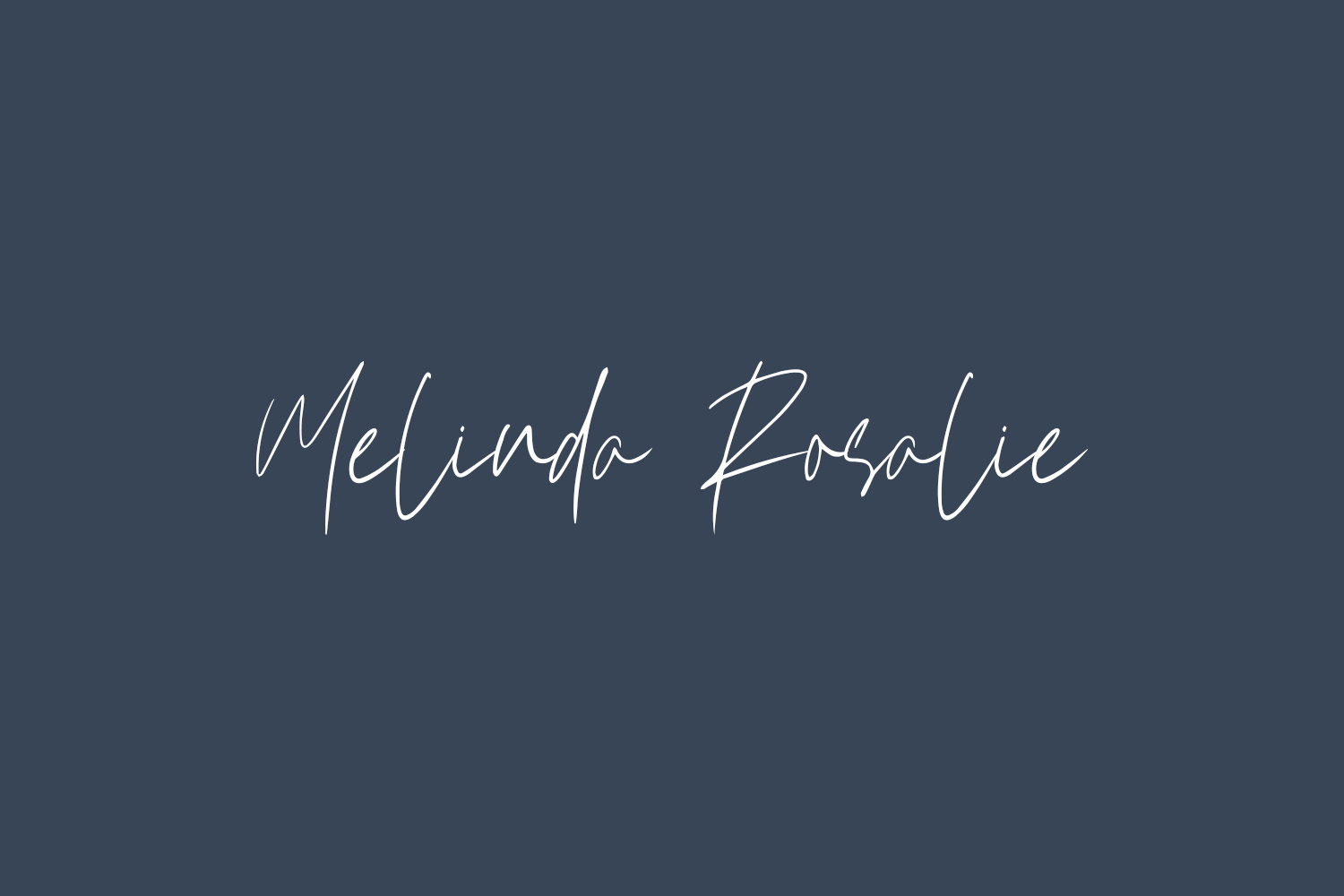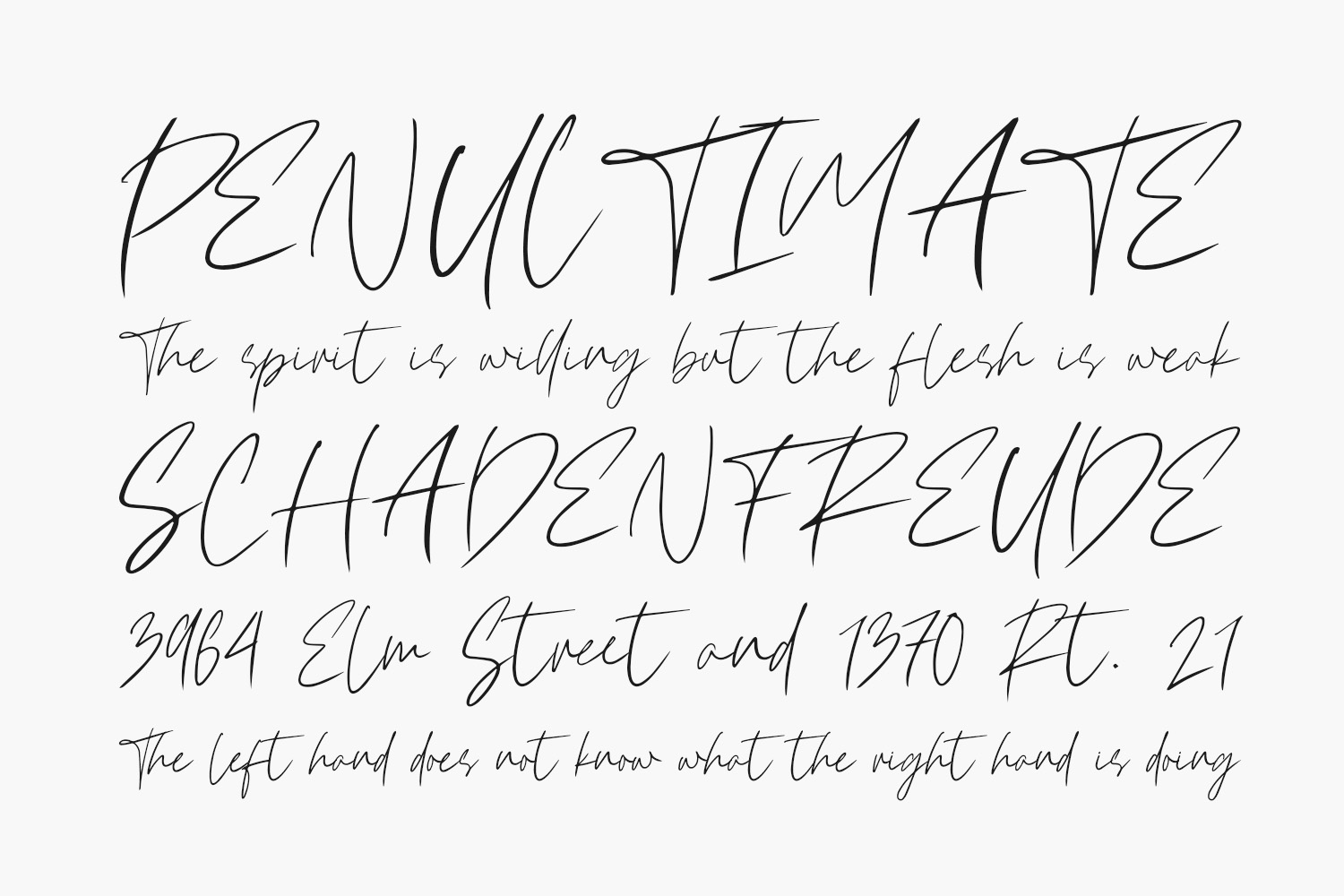
Melinda Rosalie Free Font is a stunning signature font with a lovely twist. This font is PUA encoded which means you can access all of the glyphs and swashes with ease. Fall in love with its incredibly versatile style and use it to create spectacular designs. Melinda Rosalie Free Font was designed by Bluestype Studio and is free for personal use only. Please purchase the full version for commercial use.